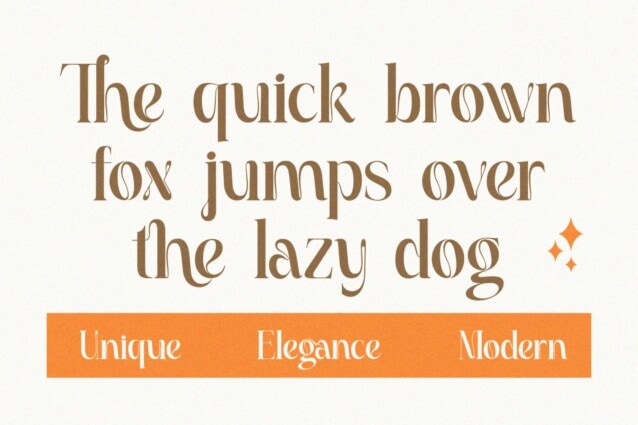
Bright Glamore Font
Bright Glamore Font is an enchantingly feminine serif typeface, exquisitely crafted to add a dash of romance and charm to your designs. With its thin serifs, smooth curves, and distinctive details, this font is perfect for fashion branding, editorials, premium packaging, and exclusive typography designs.
Bright Glamore blends classic elegance with a modern touch, making it the perfect choice for designers looking to create exclusive, stylish, and sophisticated typography. With its ligatures & alternates, you can experiment and personalize your designs for a truly unique look.